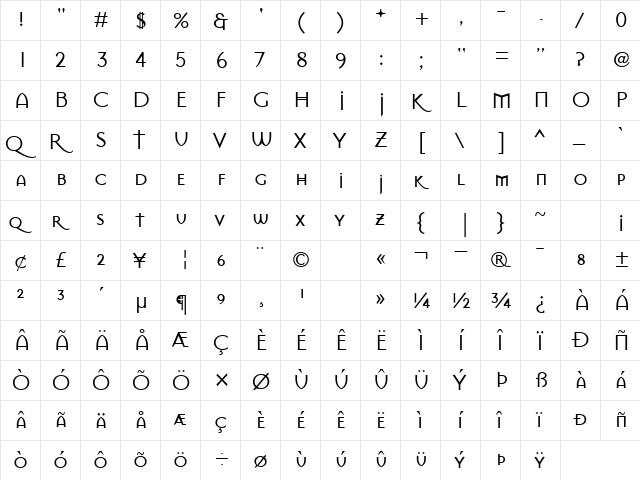
MasonSansRegular Font Preview
MasonSansRegular Regular
MasonSansRegular Font Details
| Copyright | Copyright (C) 1994 Emigre Graphics; Designed by Jonathan Barnbrook |
Design Context for MasonSansRegular Typeface
MasonSansRegular takes a measured approach to typography — its balanced proportions and neutral character make it a reliable workhorse for both digital and print work.